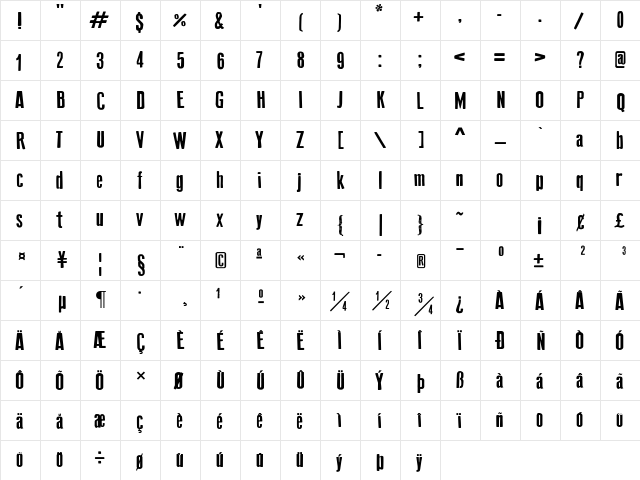
Old Press Original Regular Font Preview
Old Press Original Regular
Old Press Original Regular Font Details
Design Context for Old Press Original Typeface
Old Press Original is a composed and adaptable typeface that performs quietly and consistently across a wide range of design contexts.